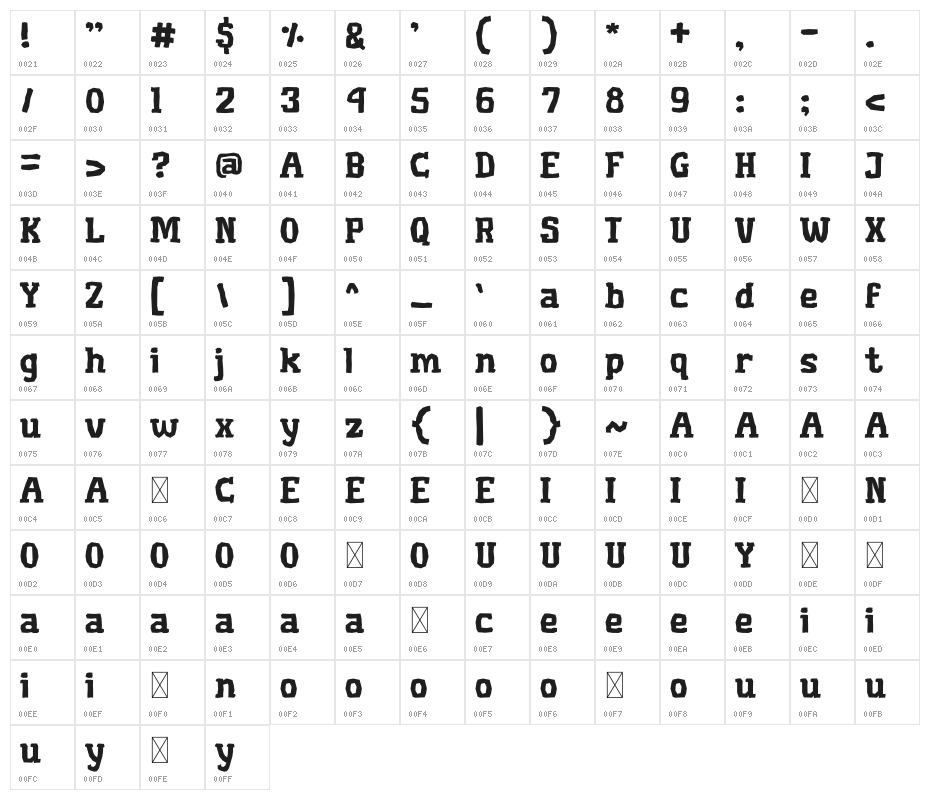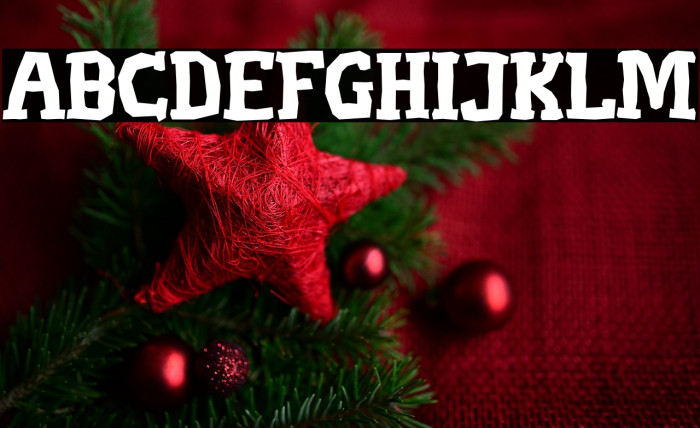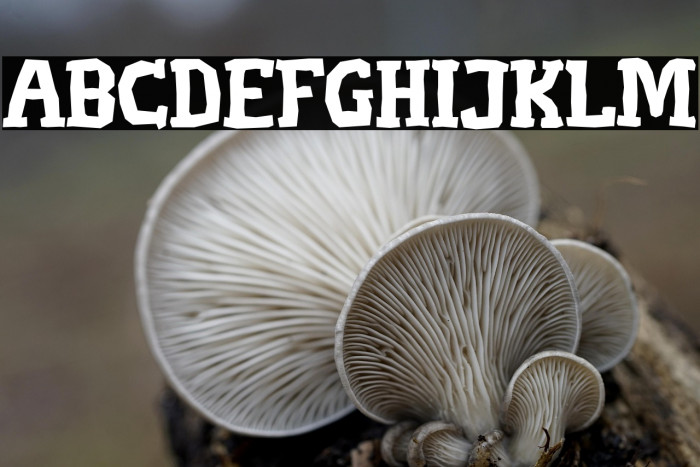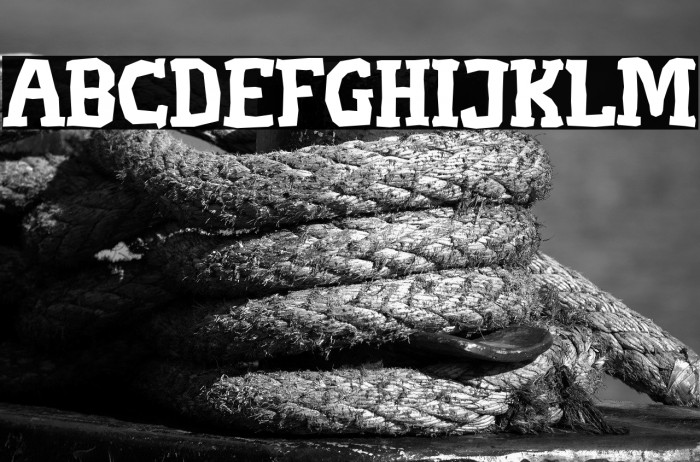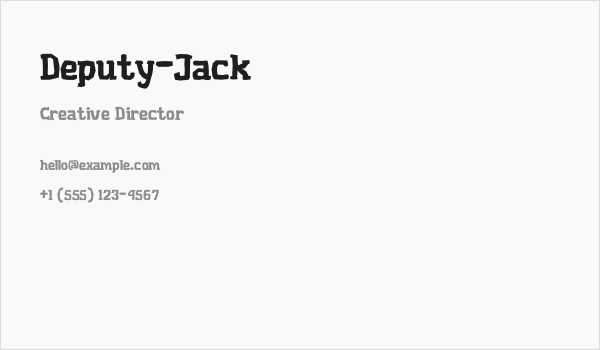
Deputy-Jack Font
Deputy-Jack Description
This font features a bold and rugged style with a distinctly hand-drawn appearance. The characters are uneven and slightly irregular, giving it a rustic and vintage feel. The uppercase letters are strong and commanding, while the lowercase letters maintain a consistent style with a slightly more relaxed form. Numbers and special characters follow the same bold and textured design, making them stand out. The overall aesthetic is reminiscent of old Western or vintage signage, perfect for projects that require a touch of nostalgia or a handcrafted look.
| Proposed Projects | Ideal for vintage posters, Western-themed events, rustic branding, and handcrafted product labels. |